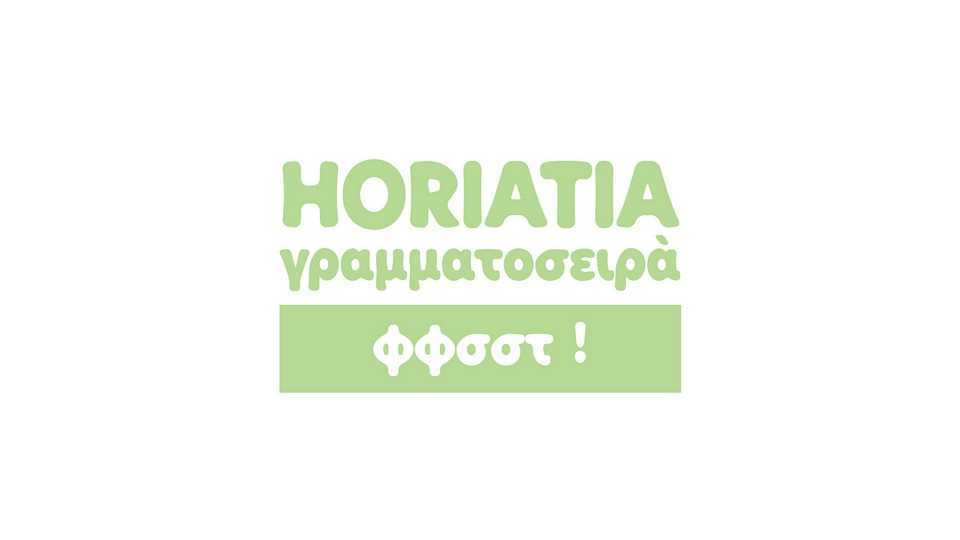
Download Horiatia font, an authentic hand lettered typeface created with a bold yet smooth look. Horiatia is perfect for unmissable display text, logos, handwritten quotes, product packaging and so on.
Designer: Christos Lentzaris